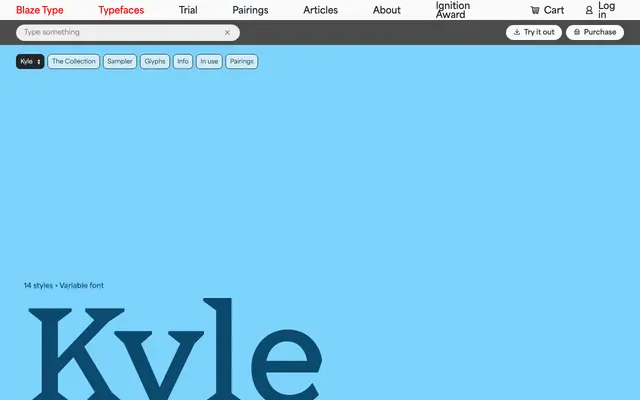
Kyle
Blaze Type · Alexander Rütten, Olivia Wood · 2024
Kyle specimen from Blaze Type
A contemporary monoline slab with typewriter origins, whose sharp triangular serifs grow in prominence and personality across seven weights.
Designed by Alexander Rütten and Olivia Wood and released in 2024, Kyle begins as a restrained typewriter-inflected slab at lighter weights before its triangular serifs take on increasing visual weight and character at bolder settings. The heavier styles are particularly suited to headline use, where the serifs give the letters a strong, distinctive footing. The family ships as 14 styles plus a variable font, with an extended Latin character set of over 800 glyphs covering Central, Eastern and Western European languages.
Kyle is described as a monoline serif with typewriter origins and sharp triangular serifs that shift character across weights, placing it firmly in the slab serif tradition despite its transition toward triangular extremities at heavier weights.